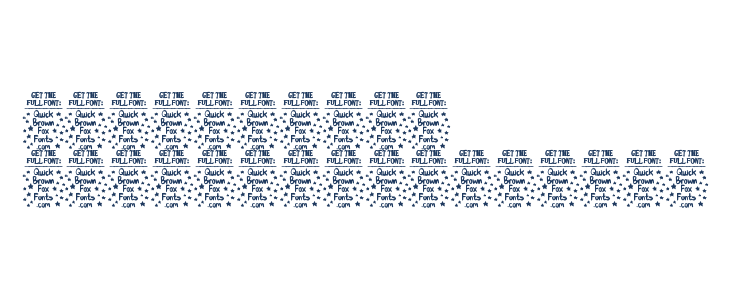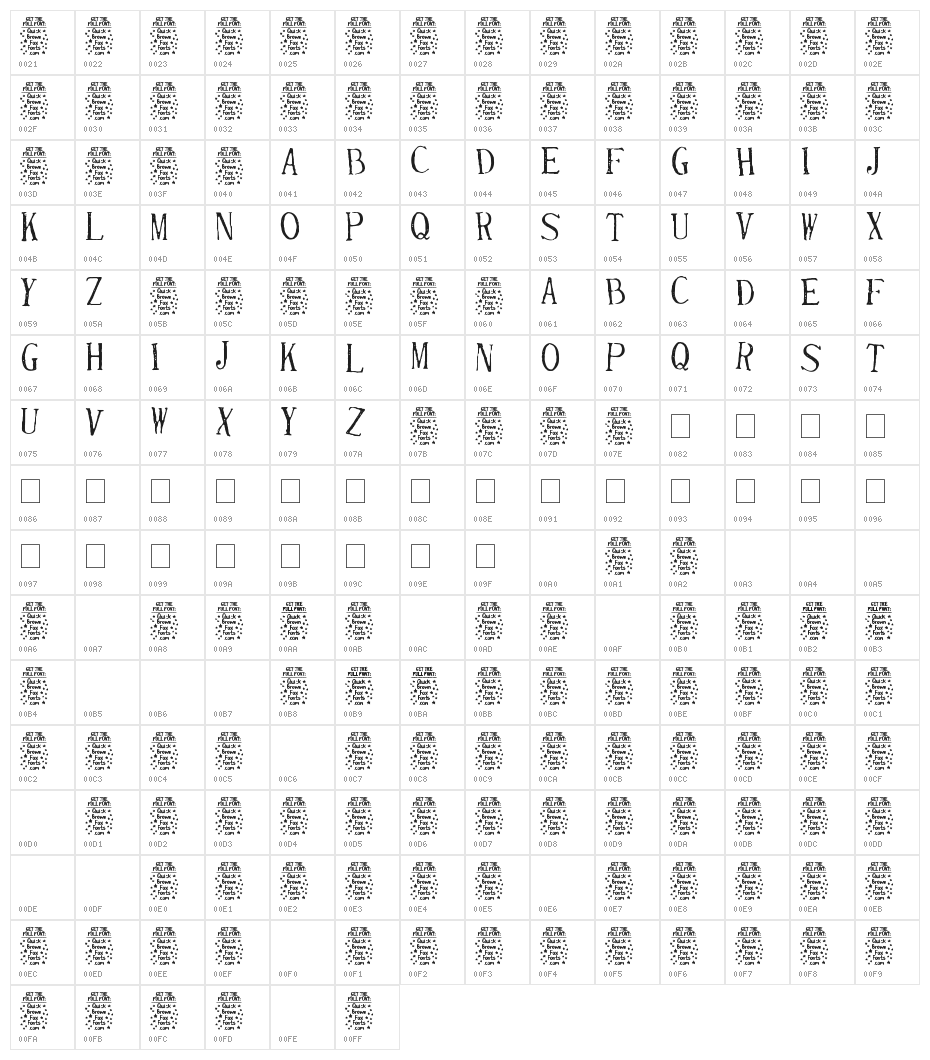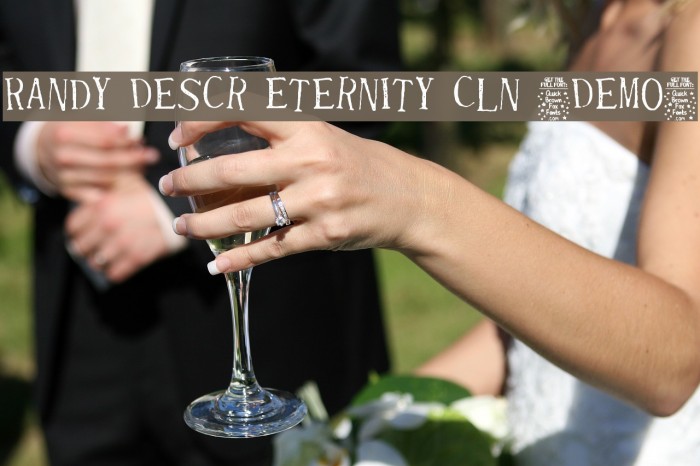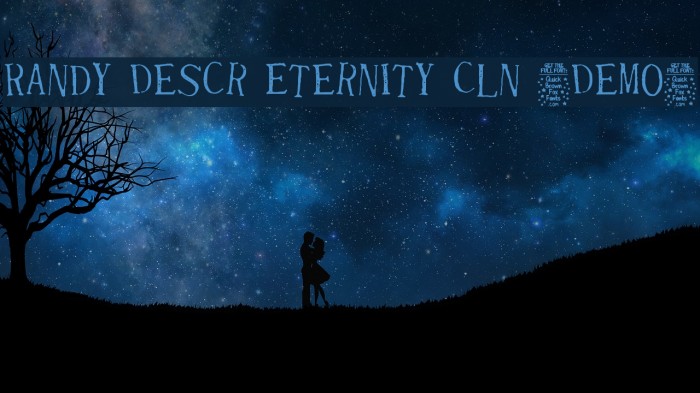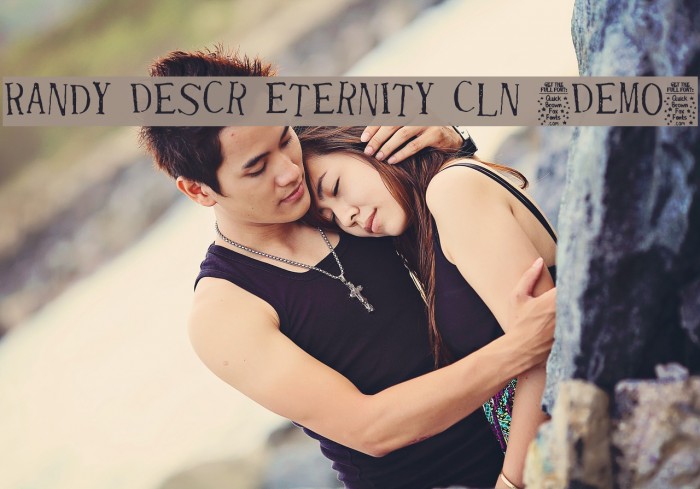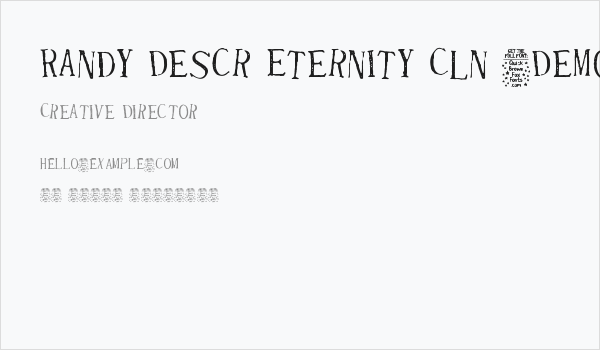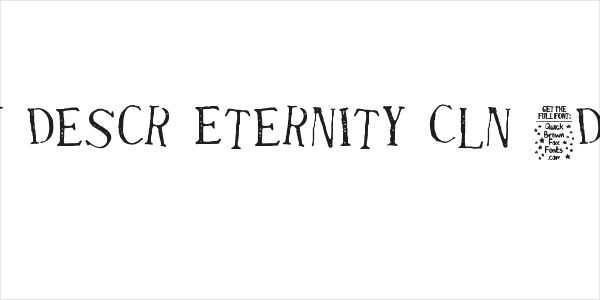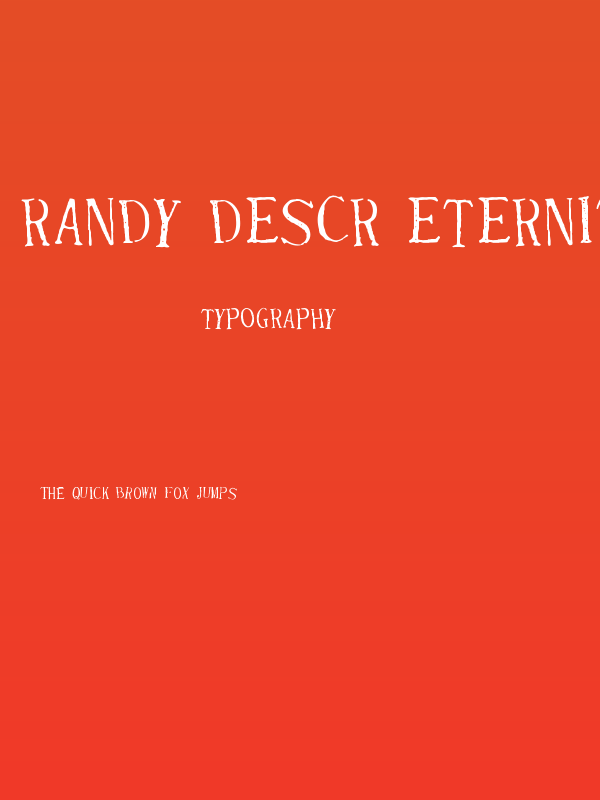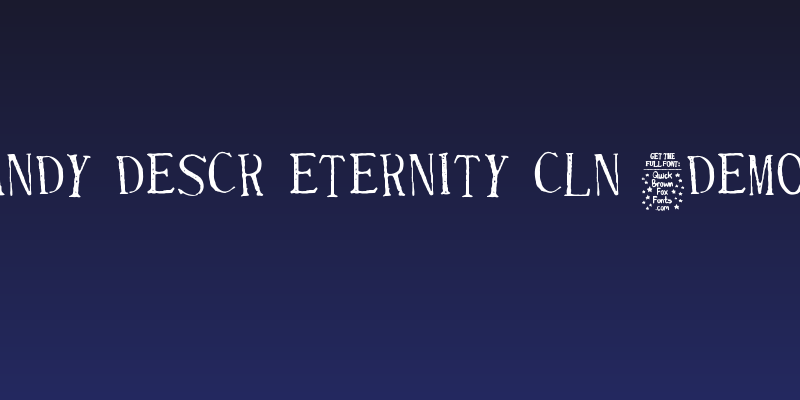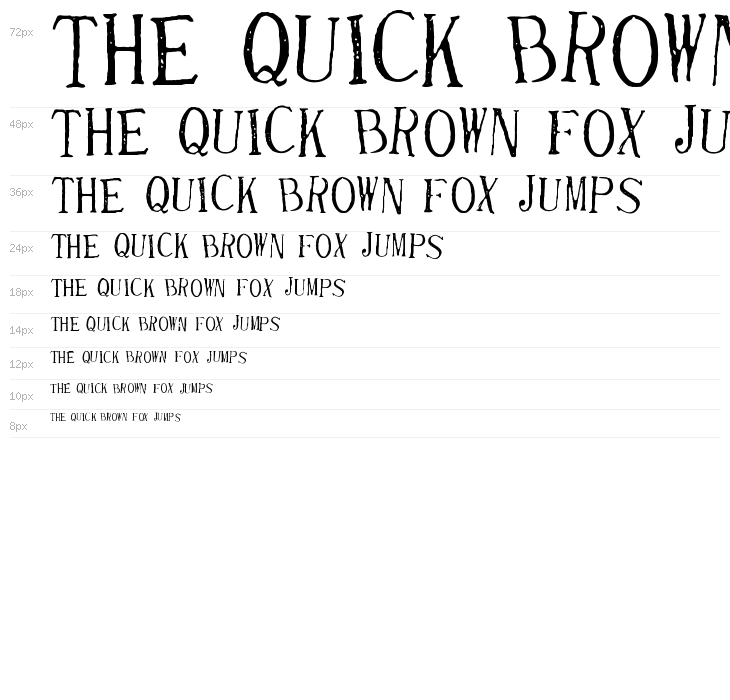
Randy Descr Eternity Cln [Demo] Font
Randy Descr Eternity Cln [Demo] Description
This font features a distinctive, hand-drawn style with an uneven, textured appearance. The letters are slightly irregular, giving them a rustic and organic feel. The strokes vary in thickness, adding to the handcrafted look. The uppercase letters are bold and prominent, while the lowercase letters maintain the same quirky charm. The numbers and special characters follow the same design principles, ensuring consistency across the font. This style is reminiscent of vintage or artisanal designs, making it suitable for projects that require a personal touch.
| Use Case | Logos, Posters, Packaging |
| Proposed Projects | Ideal for vintage-themed posters, artisanal product packaging, and creative branding projects. |